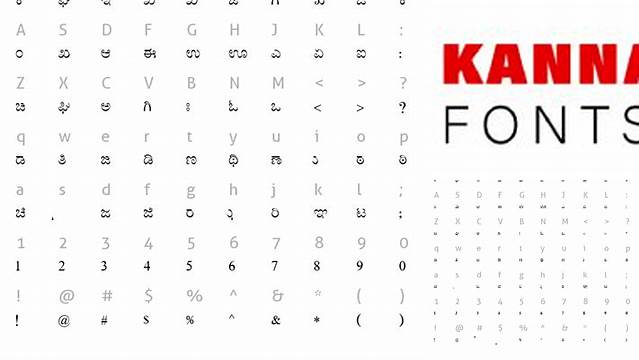
Nudi 01 E Fonts Free Download: Your Ultimate Guide
Are you on the hunt for some killer fonts that'll make your designs pop? Well, look no further, because we're diving headfirst into the world of Nudi 01 E fonts free download! These fonts are not just your run-of-the-mill typefaces; they're a statement. They bring a unique flair that can elevate your projects from basic to breathtaking. Whether you're a seasoned designer or just starting out, getting your hands on these fonts is a game-changer. Let's explore why Nudi 01 E fonts are so awesome, how to get them, and how you can use them to unleash your creativity. Buckle up, because it's going to be a fun ride, guys!
What Makes Nudi 01 E Fonts So Special?
So, what's the big deal about Nudi 01 E fonts? Why are people so hyped about them? Well, first off, these fonts are incredibly versatile. They're designed to work well in a variety of contexts, from headlines and logos to body text and everything in between. This adaptability makes them a fantastic choice for virtually any project you can dream up. They've got this special something that grabs your attention, a certain je ne sais quoi that makes them stand out. It's like they're saying, “Hey, look at me!” And trust me, your audience will.
Nudi 01 E fonts aren’t just visually appealing; they also bring a level of professionalism and polish that can really elevate your work. They add a touch of sophistication, making your designs look more refined and well-thought-out. But it's not just about the visual appeal; it’s about the feeling these fonts evoke. They're expressive, bringing a certain emotional depth to your designs. They convey messages with a unique character and personality. The fonts are also designed with user-friendliness in mind. They are easy to read, making them perfect for a wide range of applications. Whether you're working on a website, a print design, or a social media campaign, these fonts will ensure your message is clear and impactful. They strike a great balance between creativity and functionality, making them a must-have for any designer or creative looking to make a statement. And who doesn't want to make a statement, right?
How to Use Nudi 01 E Fonts in Your Designs
One of the best ways to use Nudi 01 E fonts is to create eye-catching headings and titles. The fonts have a bold and distinctive style, making them perfect for grabbing attention. Use them to announce your message or highlight key information. Pair them with other complementary fonts for body text to create a balanced design. Don't be afraid to get creative with your typography. Use different font sizes, colors, and effects to make your text visually interesting. It’s all about creating a unique and memorable look that fits your brand or project. You can also integrate these fonts into your logos and branding materials. The unique style of Nudi 01 E fonts can add a sense of personality and professionalism to your brand. They will make your brand stand out from the crowd.
Another great idea is to use these fonts for social media graphics. They are perfect for creating visually appealing posts that will capture your audience's attention. Use them to design quotes, announcements, or promotional materials. And don’t forget about print designs, like posters, flyers, and brochures. The Nudi 01 E fonts will add a touch of sophistication and impact. Whether it’s a digital design or something tangible, these fonts can work for any of your projects. Experimenting with these fonts is the name of the game. The more you play around with them, the more you'll discover their potential. Try different combinations, color schemes, and layouts. Have fun with it, and let your creativity flow!
Conclusion: Unleash Your Creativity with Nudi 01 E Fonts
So there you have it, folks! Nudi 01 E fonts free download are a fantastic addition to any designer's toolkit. They offer versatility, style, and a whole lot of creative potential. By knowing where to find them, how to use them, and how to navigate the licensing requirements, you can start using these fonts to elevate your projects. They can add a fresh, unique look to your designs. Go out there, download some fonts, and start creating! Don’t be afraid to experiment, and remember that the most important thing is to have fun. If you have any more questions, feel free to ask. Happy designing!